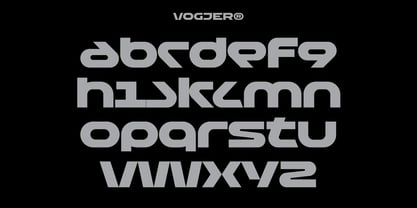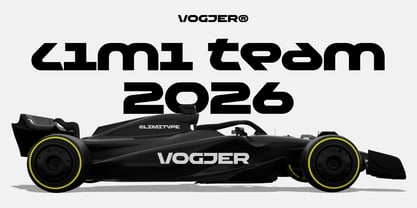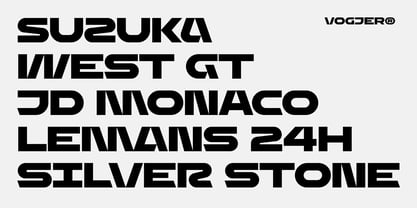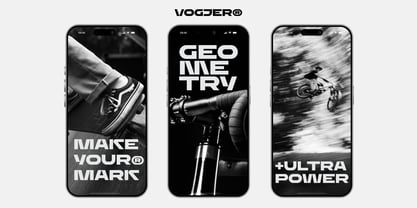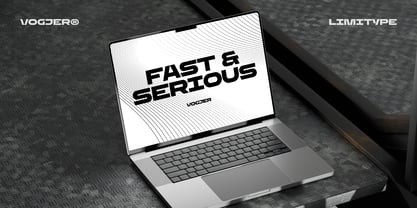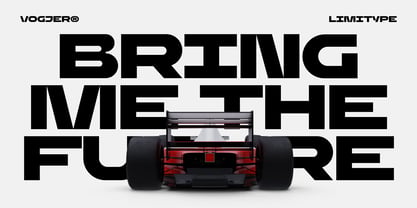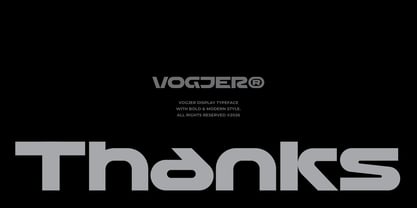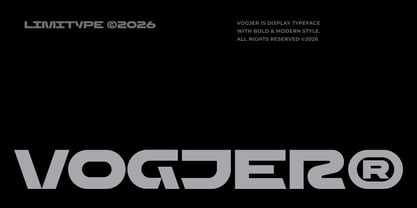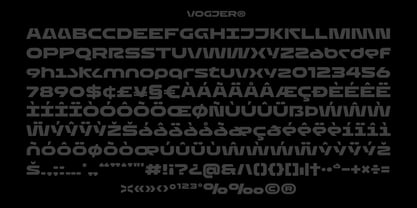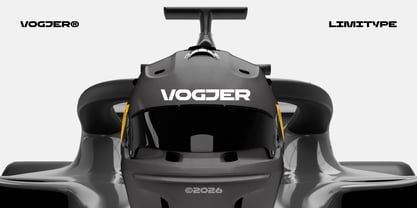
Vogjer
von limitype
Die Schriftfamilie Vogjer wurde von Muhammad Muammar, Furqan Sudirman entworfen und von limitype veröffentlicht. Vogjer enthält 1 Stile. Mehr über diese Familie
Vogjer is a bold futuristic typeface designed with a strong, dynamic structure that delivers a powerful visual impact. Its sharp forms and modern construction make it perfect for forward thinking designs such as technology branding, gaming visuals, posters, logotypes, and digital interfaces. Equipped with alternative glyphs, Vogjer offers flexible letter variations that help designers create unique and futuristic compositions while maintaining a clean and confident. Vogjer available with: Uppercase Lowercase Number Symbol Multilingual
Designer: Muhammad Muammar, Furqan Sudirman
Aktuelle Foundry: limitype